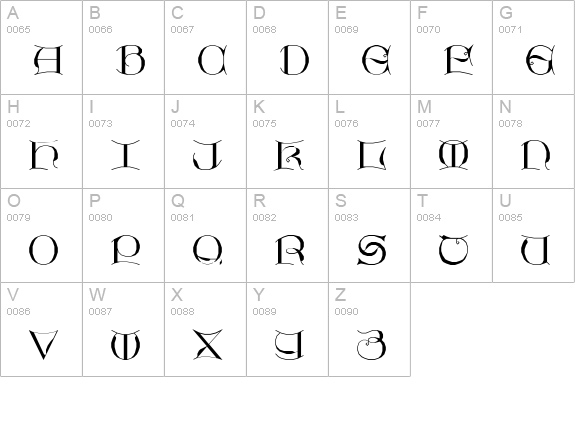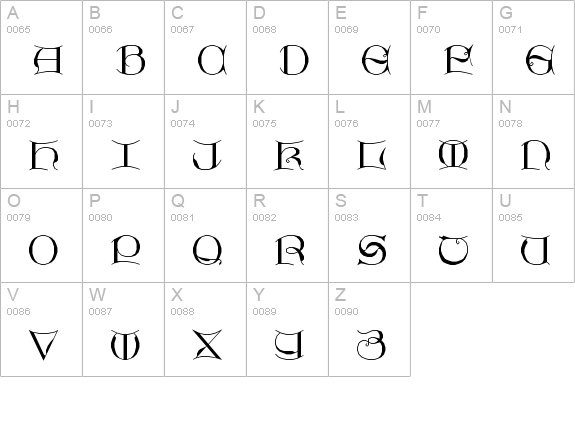
GothicI font is a stunning and sophisticated typeface that exudes elegance and charm. With its intricate details and vintage-inspired design, GothicI font is perfect for adding a touch of class to any project. The bold, Gothic-inspired letterforms make a striking statement and are sure to capture attention. Best of all, GothicI font is available for free download at FontsMarket.com. This means you can easily access this beautiful font and use it in your designs without any cost. Whether you're working on a branding project, a website design, or any other creative endeavor, GothicI font is a versatile choice that will elevate your work to the next level. Download GothicI font today and unleash your creativity with this exquisite typeface.